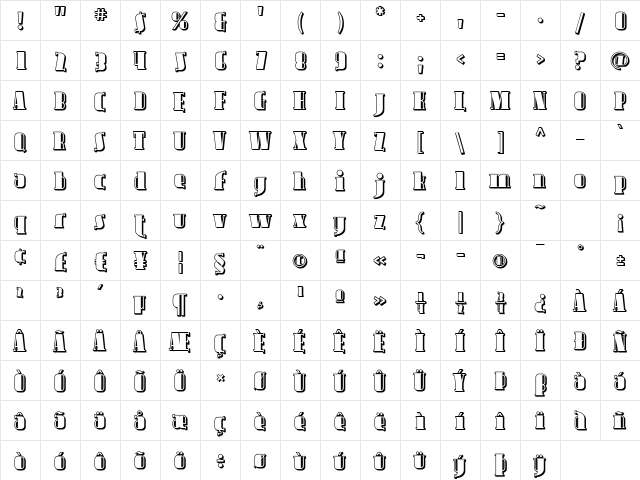
Avondale Shaded Regular
Designer: Derek Vogelpohl
Complete Avondale Shaded Regular glyph index. Displaying only characters natively supported by Avondale Shaded Regular font.
Design Context for Avondale Shaded
Avondale Shaded is a composed and adaptable typeface that performs quietly and consistently across a wide range of design contexts.